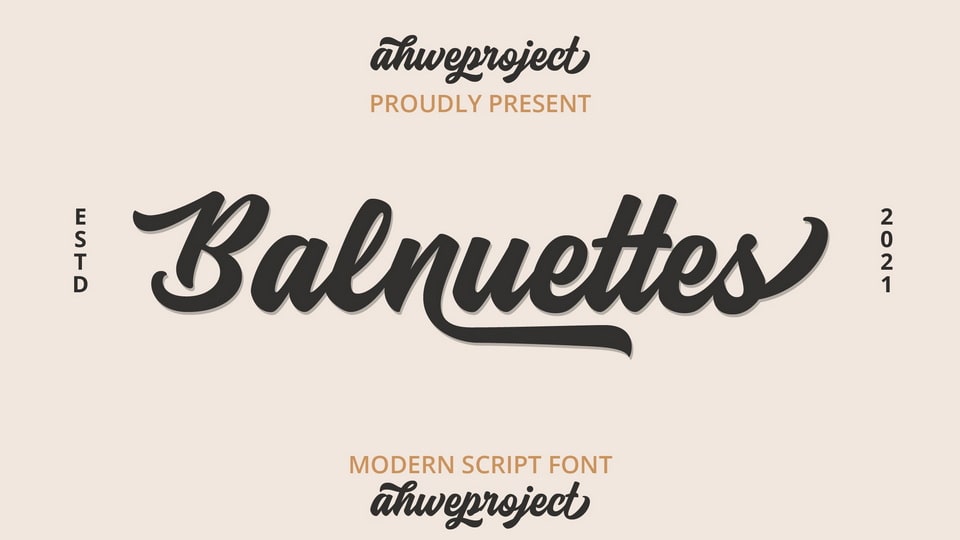
Download Balnuettes font, a lovely and delicate script that exudes elegance and class. Balnuettes font was particularly crafted for those who need a beautiful and refreshing look to their designs.